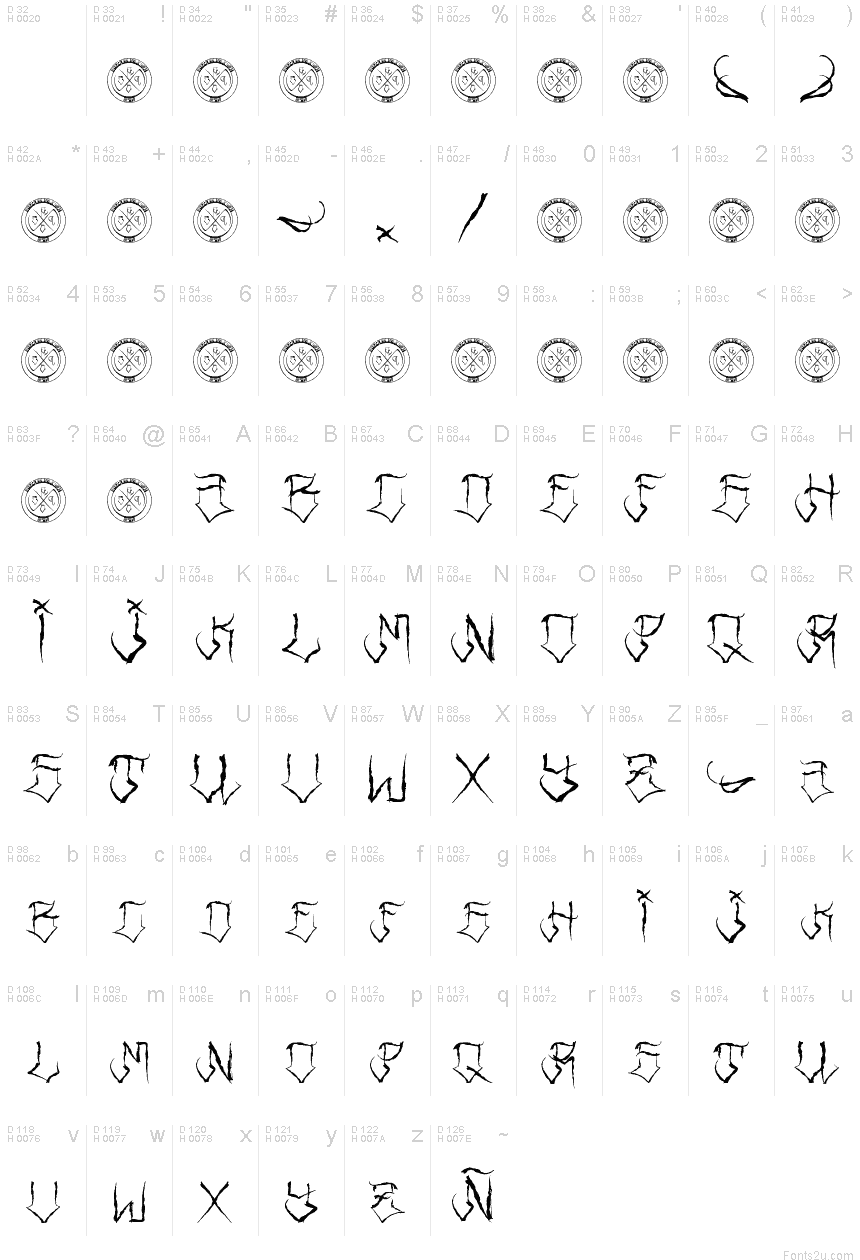
Riders Font is a free Gothic display font with a rough hand-lettered finish and the sharp, skeletal structure of distressed blackletter. Its uneven strokes shift between narrow scratches and heavy inked knots, with hooked tips and broken-looking joins that lend the letters a tense, improvised silhouette.
Its dark music posters and album artwork can use that thorny outline as part of the illustration itself. Haunted attraction signage and horror game titles draw on the same scratched, menacing shapes but read them as scenery or carved marks. The strongest audience is designers working in metal, horror, and underground entertainment, where polished lettering would feel out of place.